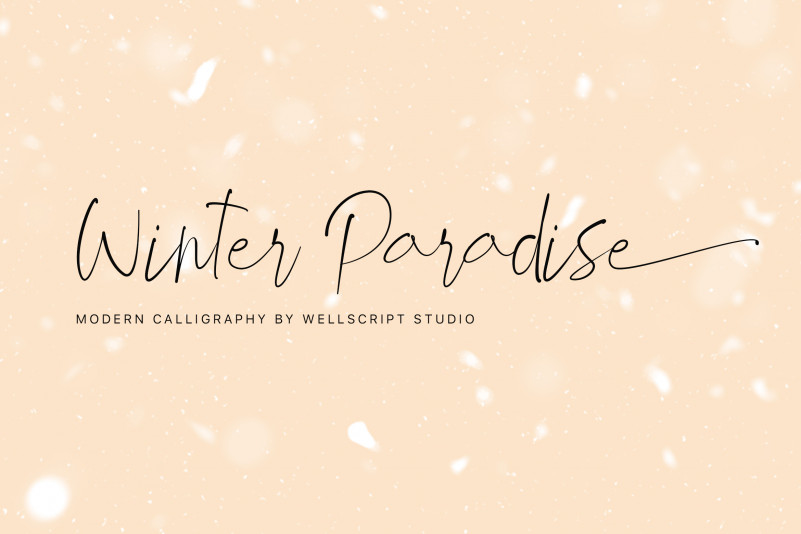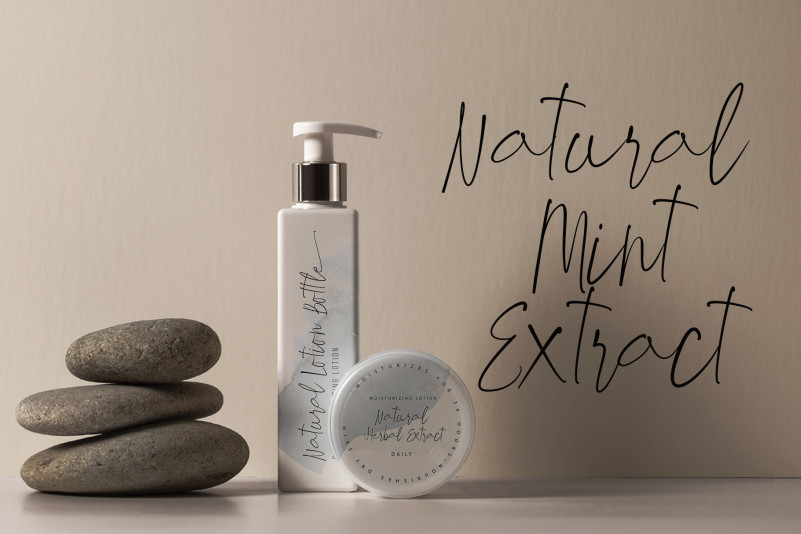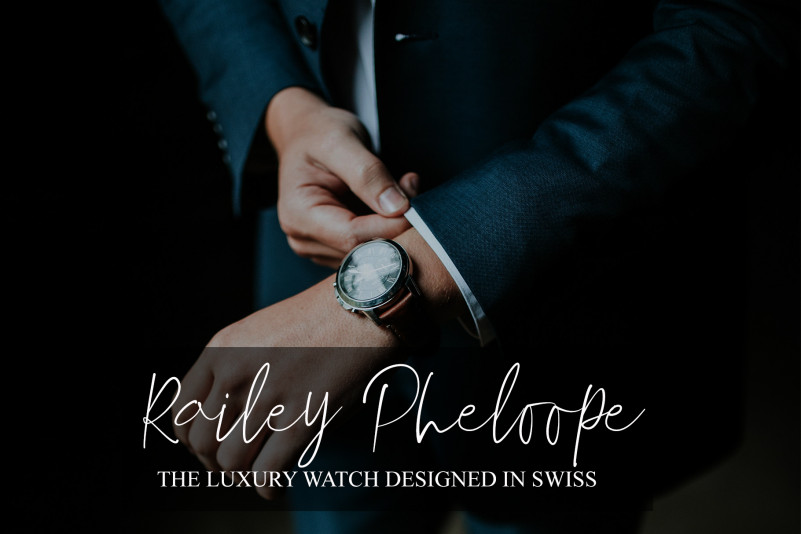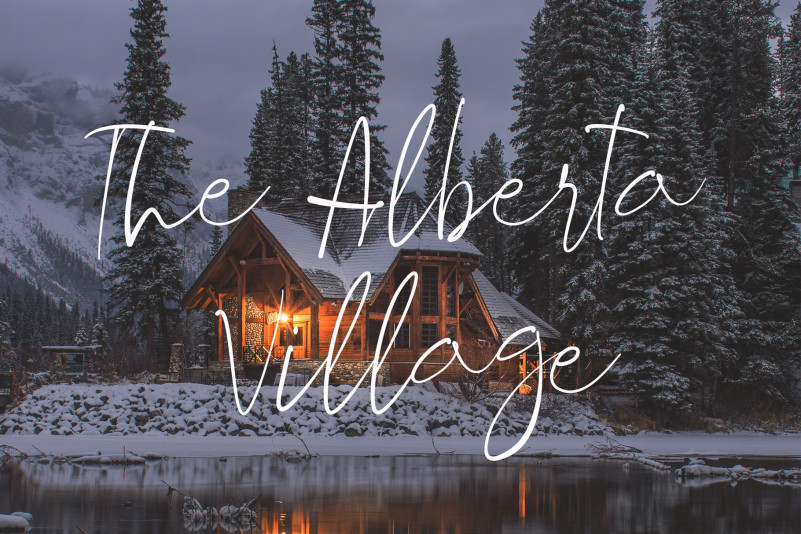
Winter Paradise Font is calligraphy script with a natural & simply style.This collection of scripts is perfect for branding. This works well for many applications. Everything from branding, wedding invitations, social media posts, advertisements, product packaging, product designs, label, photography, watermark, invitation, stationery and any projects that need handwriting taste.